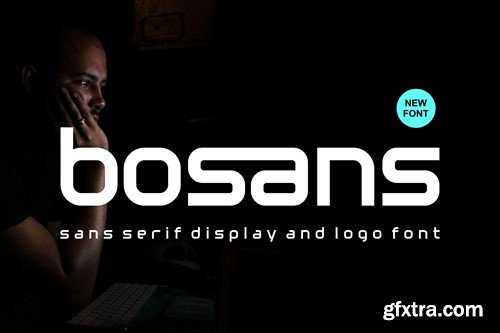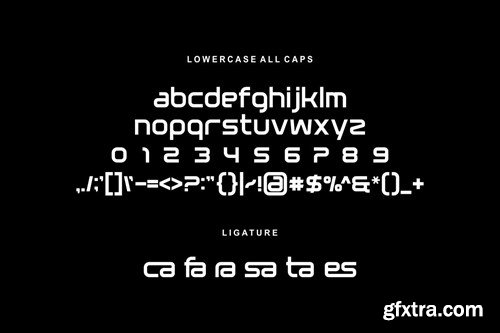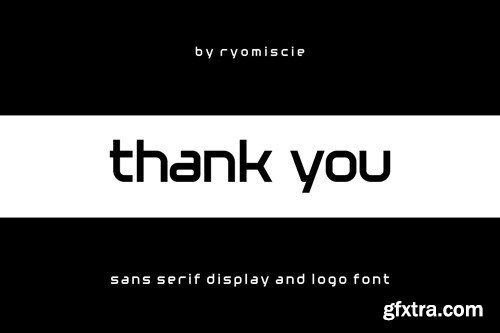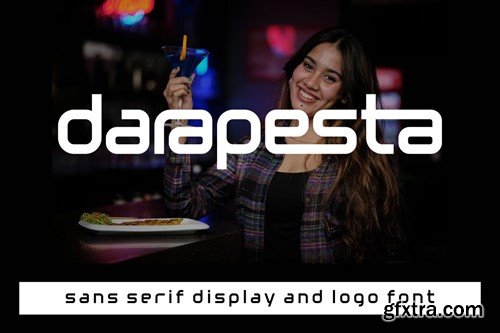
Bosans - Sans Serif Display And Logo Font
Introducing our new product Bosans Font - Sans Serif Display And Logo Font Bosans Font - Modern Font is a bold and authentic display font. The font is suitable for any branding project like logo, t-shirt printing, esport, and many more. outstanding in a wide range of contexts. availlable